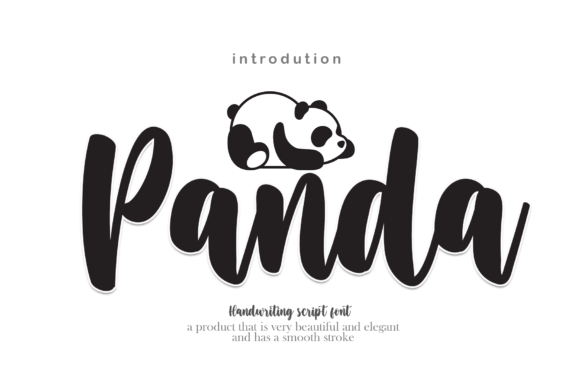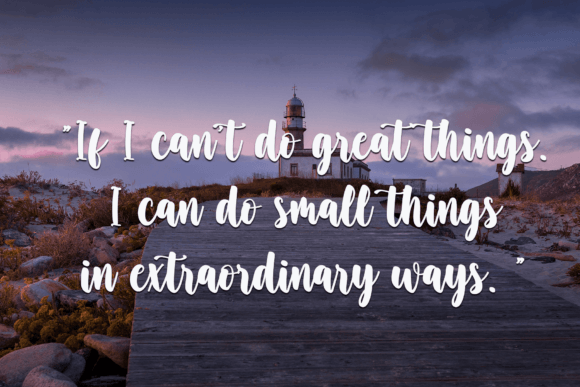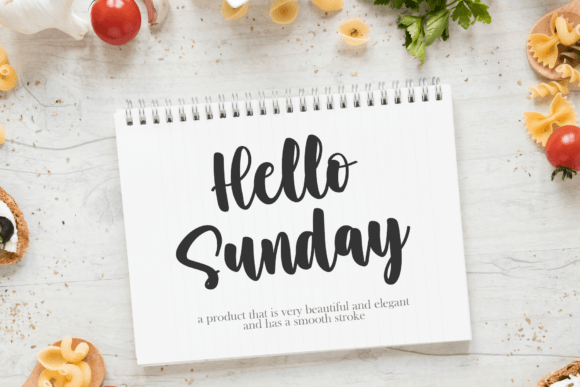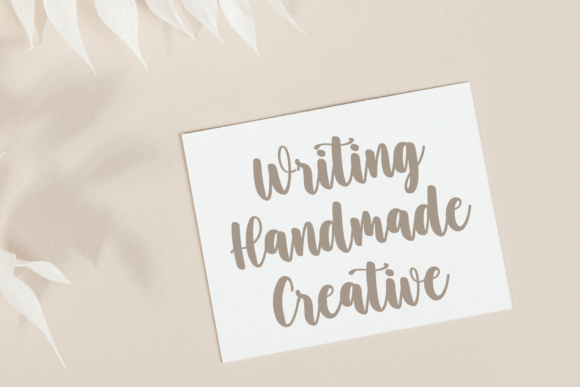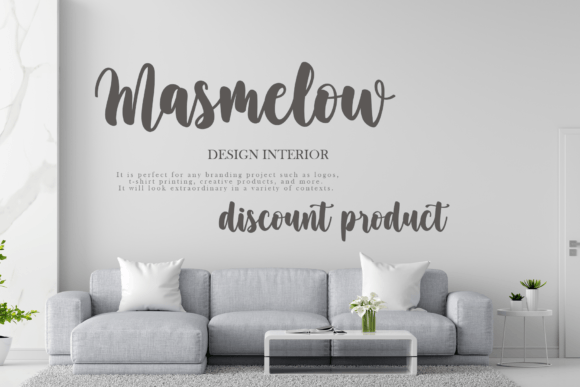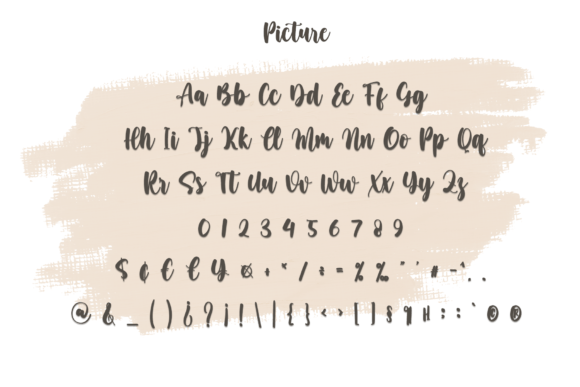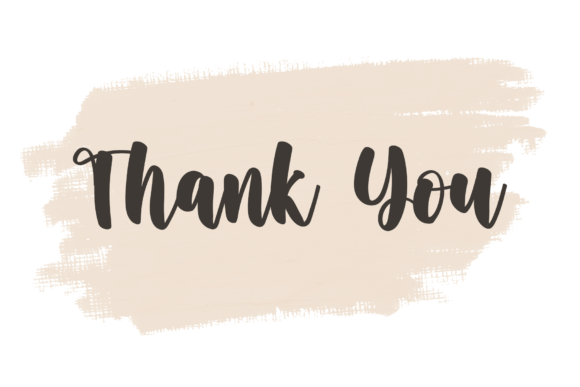
Panda Font
About Panda Font
Panda is a stylish and contemporary handwritten font that brings a modern and romantic touch to a wide spectrum of applications. With its sleek design and elegant strokes, Panda is perfect for various creative projects, from greeting cards to headlines, and everything in between.
The font’s modern aesthetic gives it a trendy and fashionable appeal, making it suitable for both digital and print media. Whether you’re designing greeting cards, social media graphics, posters, headlines, or any other creative content, Panda adds a touch of sophistication and romance to your creations. Its versatility allows it to adapt seamlessly to different contexts, ensuring that your designs exude charm and elegance.
Panda’s handwritten charm is what sets it apart, adding a personal and authentic feel to your projects. The fluidity of its characters creates a smooth and graceful rhythm, enhancing the overall visual appeal of your compositions. This handwritten touch evokes a sense of intimacy and warmth, making your designs more relatable and engaging to your audience.
Incorporating Panda into your creations guarantees a romantic atmosphere that captures the hearts of viewers. Its stylish and modern design elevates the visual impact of your projects, making them stand out and leave a lasting impression. Whether you’re crafting heartfelt greeting cards or designing eye-catching headlines, Panda enhances the overall aesthetic, ensuring your creations evoke a sense of romance and elegance.
Let Panda be the font that adds a touch of modern romance to your designs. Its stylish appearance and romantic charm create a delightful atmosphere, making your creations visually appealing and captivating. Embrace the font’s versatility and elegance to infuse your projects with a sense of romance and sophistication that resonates with your audience.